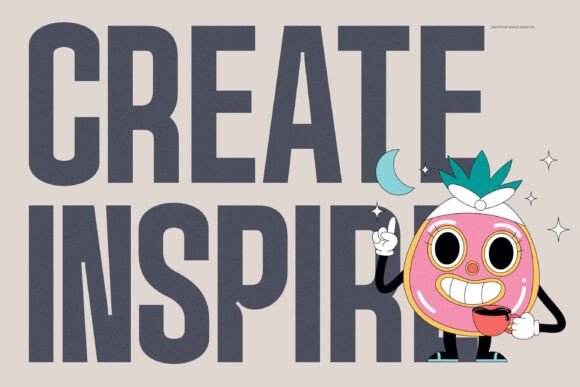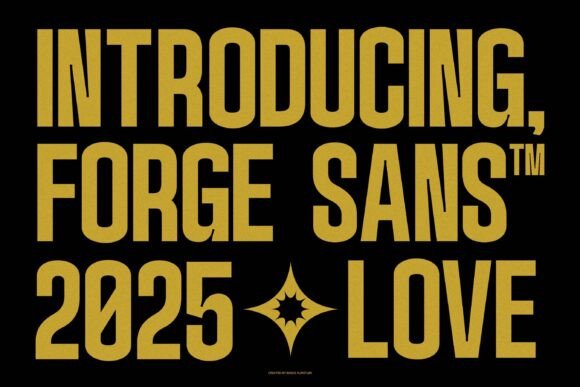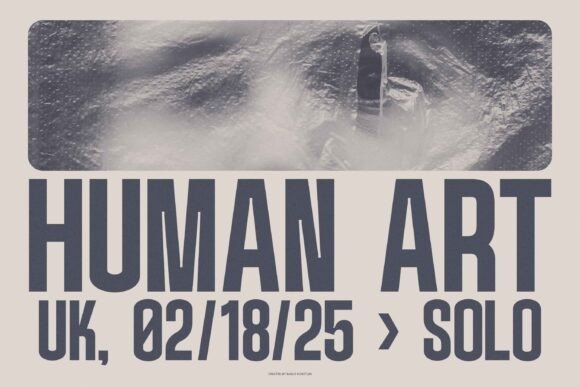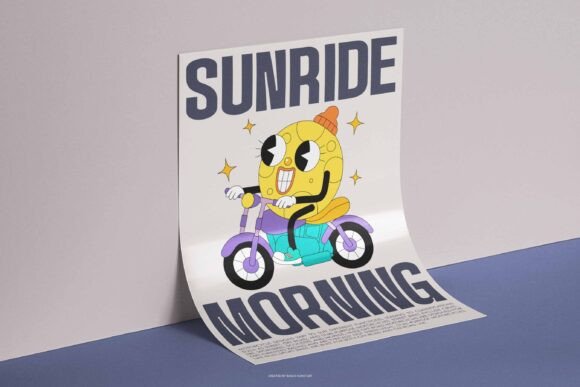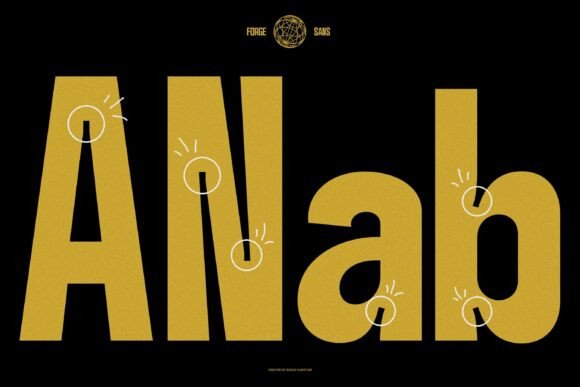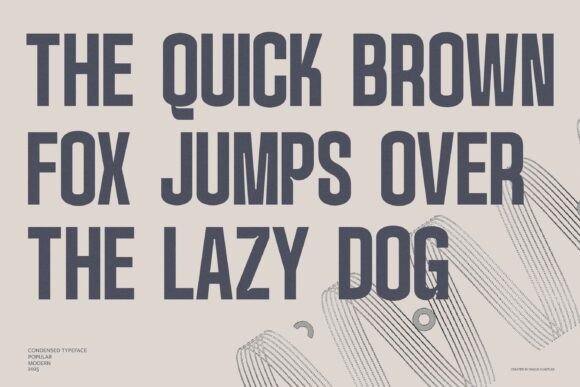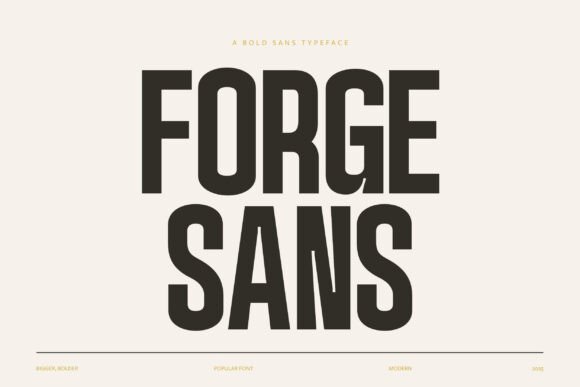
Introducing Forge Sans Font: The Ultimate Typeface for Modern Design
In the realm of typography, few fonts have managed to strike a balance between form and function as effectively as Forge Sans. This innovative typeface is the result of a meticulous fusion of precision engineering and imaginative design, yielding a font that is not only visually stunning but also highly functional. Forge Sans is specifically crafted for designers and crafters who seek to create powerful headlines that capture attention and leave a lasting impression.
The Art of Precision Engineering
Forge Sans boasts striking, distinct shapes that command attention without overwhelming the senses. Its unique design is characterized by a singular weight, which lends itself to a wide range of applications, from digital media to print. The font’s precision engineering ensures that each letterform is meticulously crafted to provide optimal readability, even at smaller sizes. This attention to detail makes Forge Sans an excellent choice for designers who require a font that can perform well across various mediums.
Imaginative Design for Creative Freedom
What sets Forge Sans apart from other typefaces is its imaginative design. The font’s creative spark is evident in its elegant lines, refined curves, and carefully considered letterforms. This artistic approach enables designers to inject personality and flair into their work, making Forge Sans an ideal choice for projects that require a touch of sophistication and style. Whether you’re crafting a bold headline or a subtle caption, Forge Sans provides the creative freedom to express your unique vision.
Usability Meets Creativity
Forge Sans seamlessly unites usability with creativity, presenting an enchanting blend of character and performance. The font’s exhaustive glyph collection supports every Latin language construct, making it an indispensable tool for designers working with international clients or targeting diverse audiences. With Forge Sans, you can effortlessly craft complex text arrangements, confident in the knowledge that your font can keep pace with your creative demands.
Readability and Performance
Readability is a critical aspect of any font, and Forge Sans excels in this regard. Its high x-height and condensed line spacing work in harmony to amplify legibility, ensuring that your text is easily readable, even at smaller sizes. This attention to detail makes Forge Sans an excellent choice for body text, captions, and other applications where readability is paramount. Moreover, the font’s performance is optimized for digital media, with careful consideration given to screen rendering and pixel-perfect precision.
A Font for Design Revolutionaries
Forge Sans is more than just a font – it’s a tool for design revolutionaries. This forward-thinking typeface is designed to empower designers to push the boundaries of creativity, experimenting with bold new layouts, typographic arrangements, and visual narratives. With Forge Sans, you can break free from the constraints of traditional typography and forge a new path, driven by your imagination and creativity.
Applications and Inspiration
So, what can you create with Forge Sans? The possibilities are endless. Use it to craft striking headlines, attention-grabbing titles, and captivating captions. Experiment with bold typographic arrangements, combining Forge Sans with other fonts to create visually stunning compositions. Whether you’re designing for print, digital media, or web, Forge Sans provides the perfect foundation for your creative projects.
In conclusion, Forge Sans is a game-changing font that redefines the boundaries of typography. Its artful fusion of precision engineering and imaginative design makes it an indispensable tool for designers and crafters seeking to create powerful, attention-grabbing text. With its exhaustive glyph collection, high readability, and performance-driven design, Forge Sans is poised to become a go-to font for design revolutionaries worldwide.